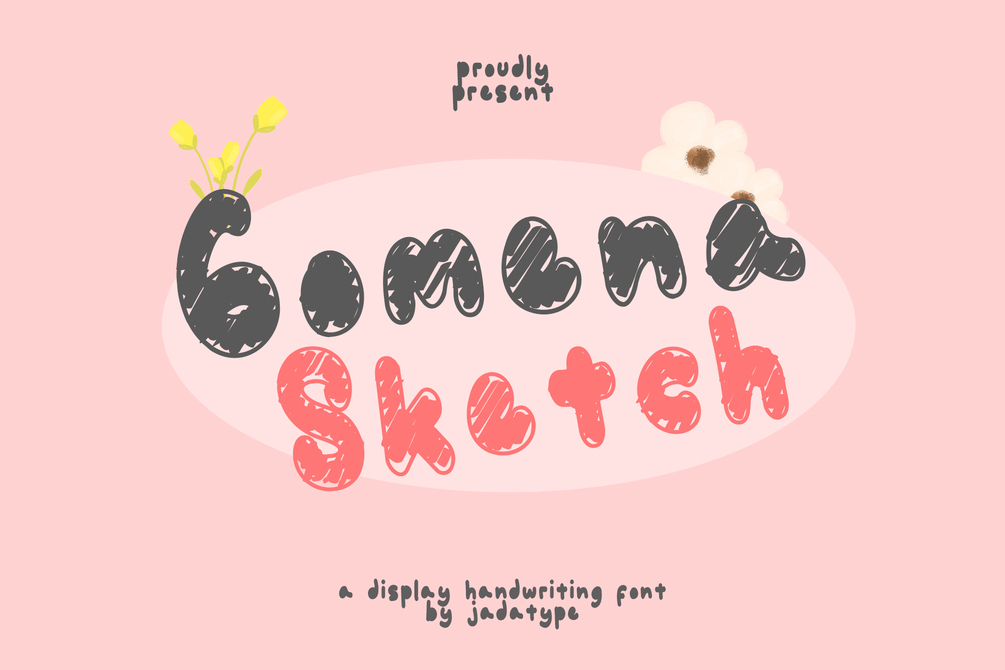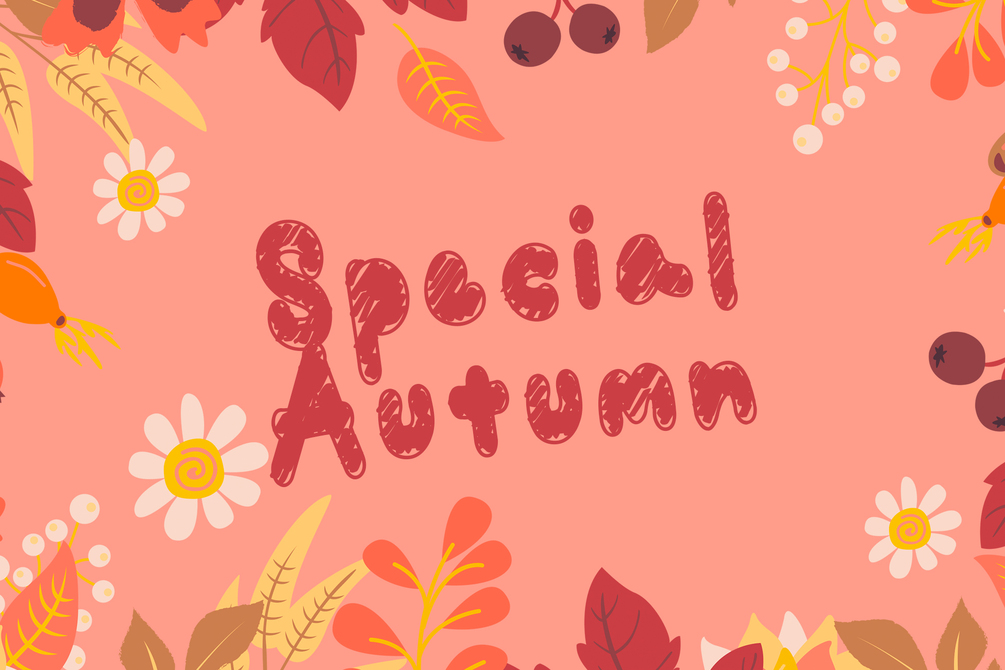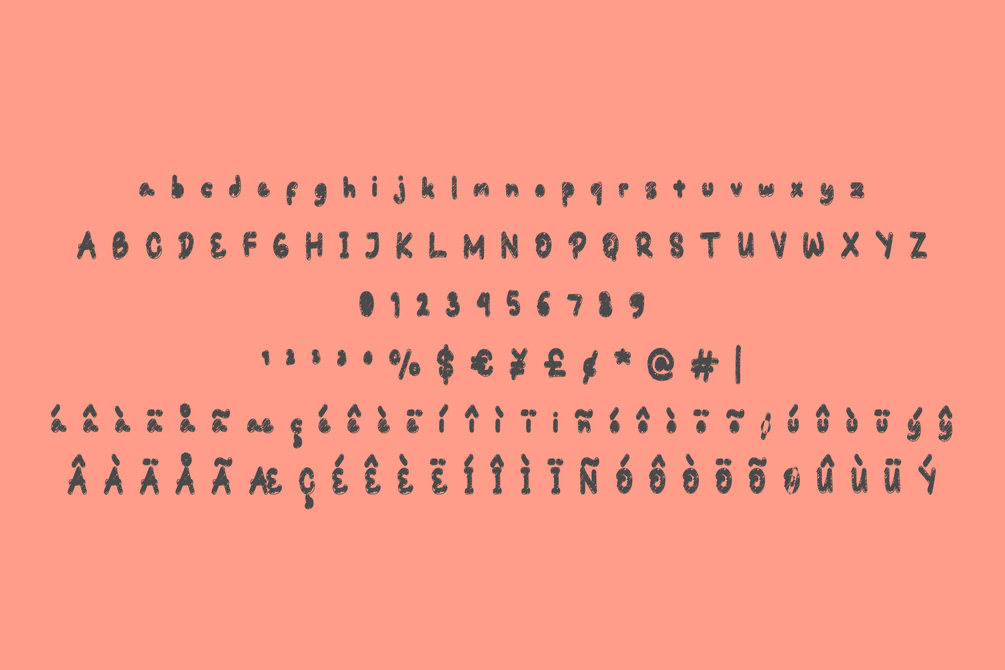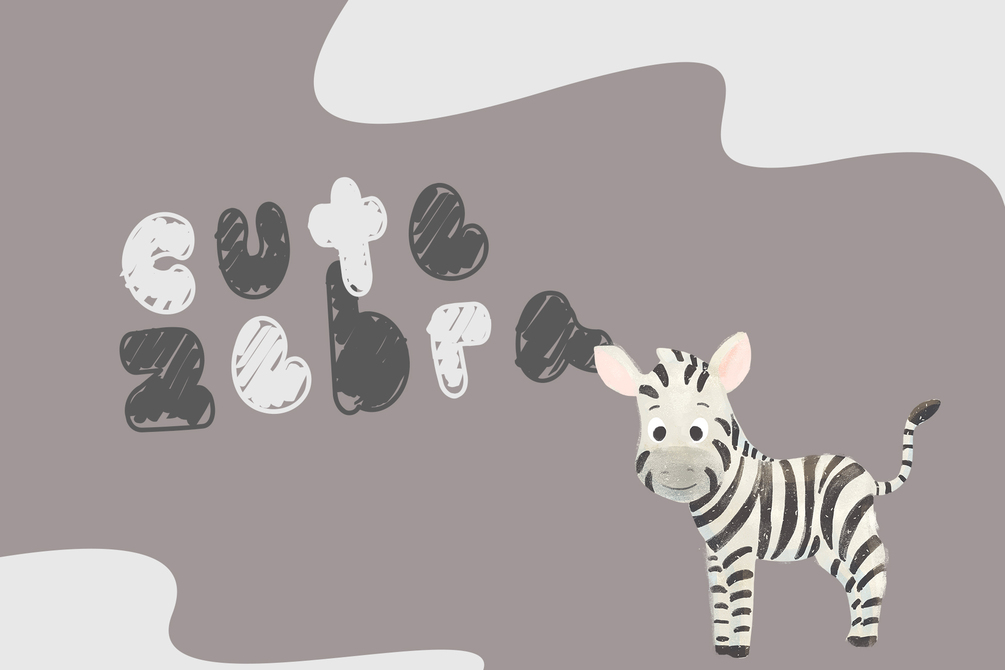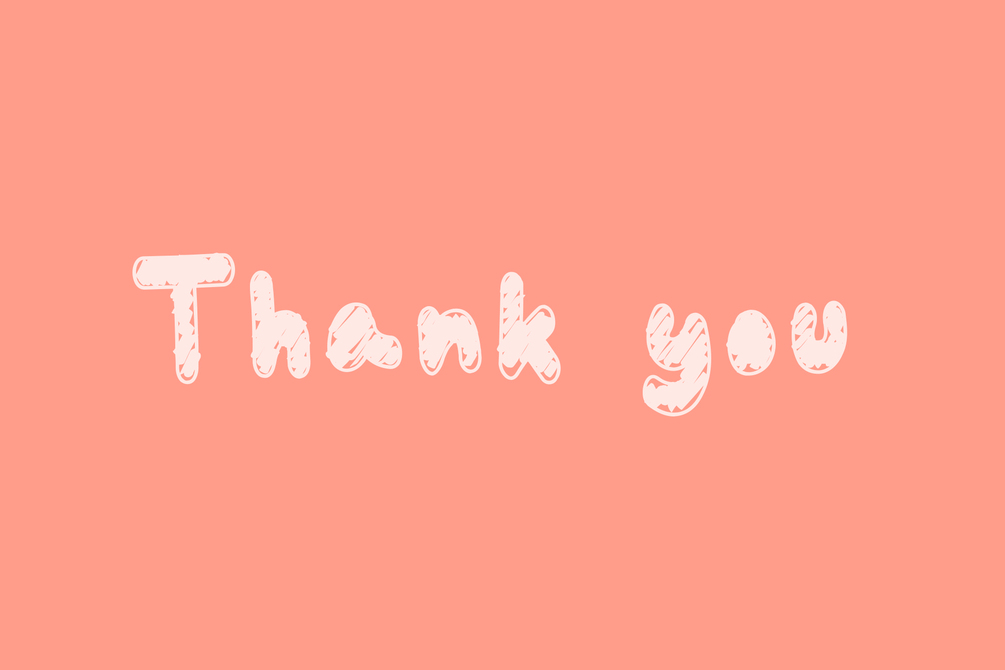
Gomena Sketch Font
Gomena Sketch is a font with a playful style. suitable for social media, branding, craft, products, handwritten, and so on. contains standard English letters, numbers, punctuation, and several accents that support multilingualism.